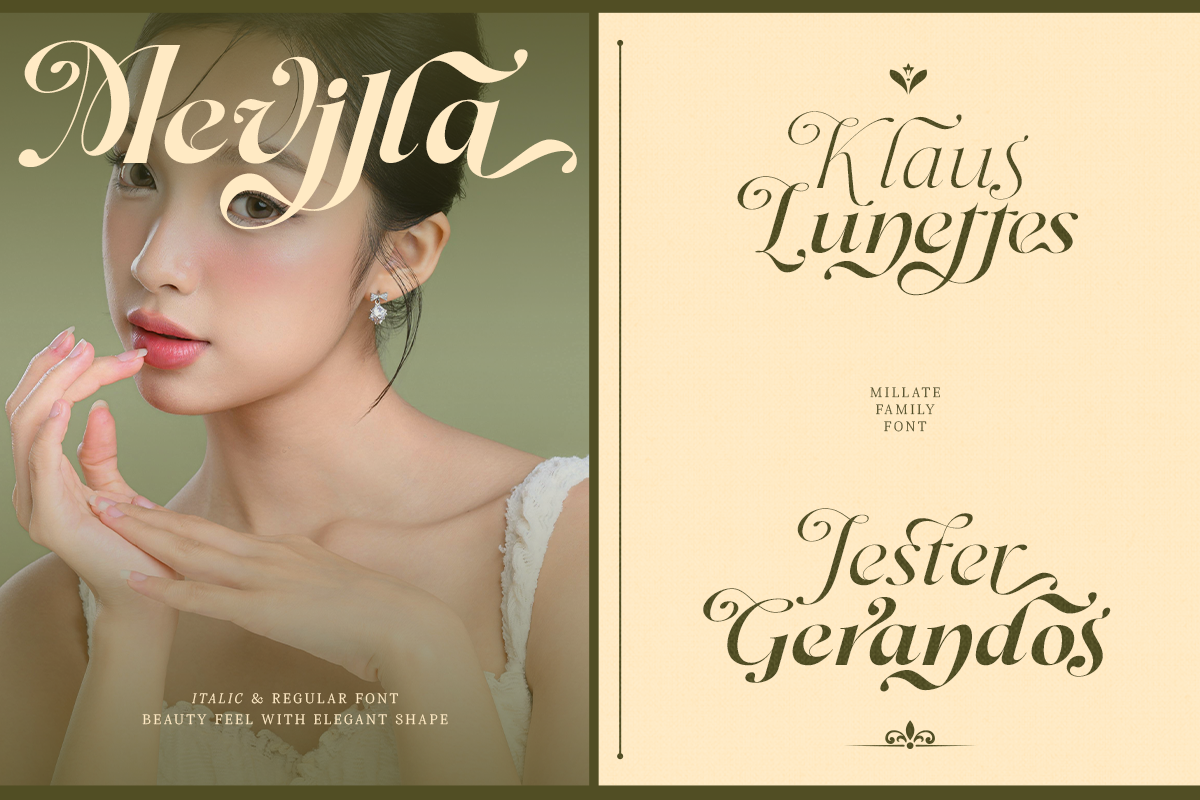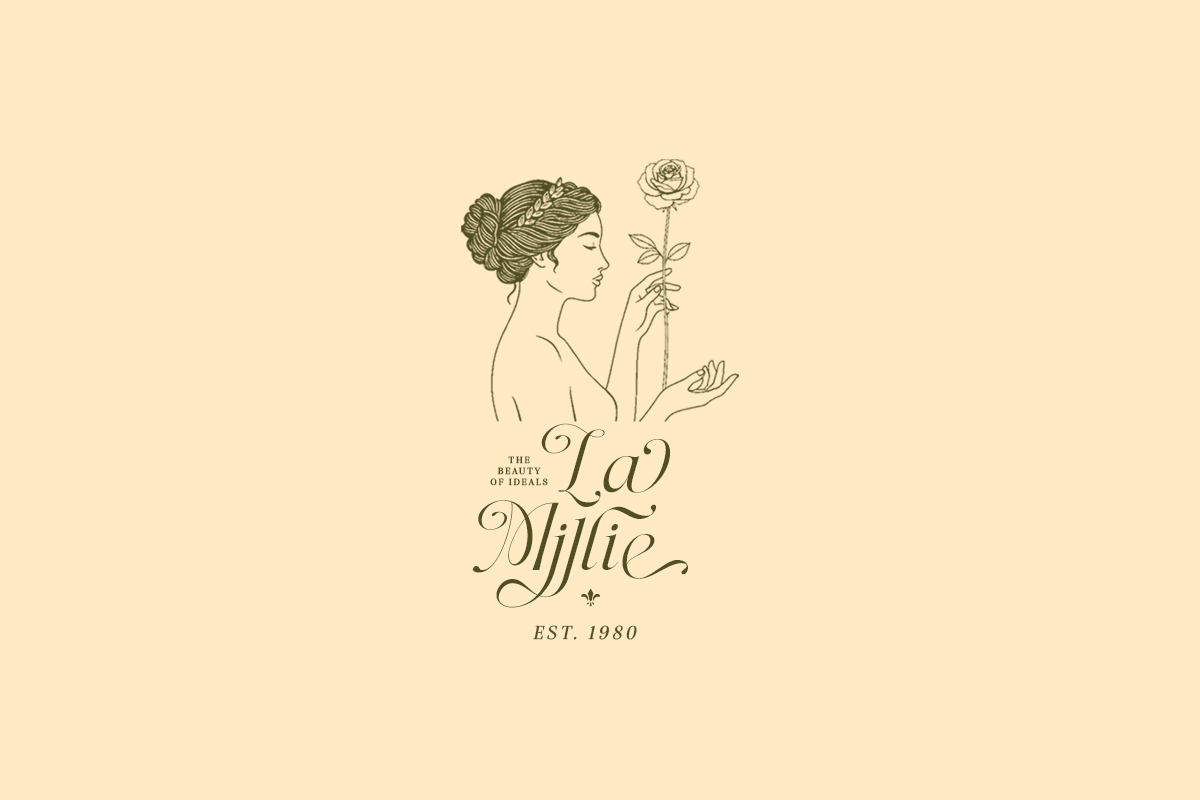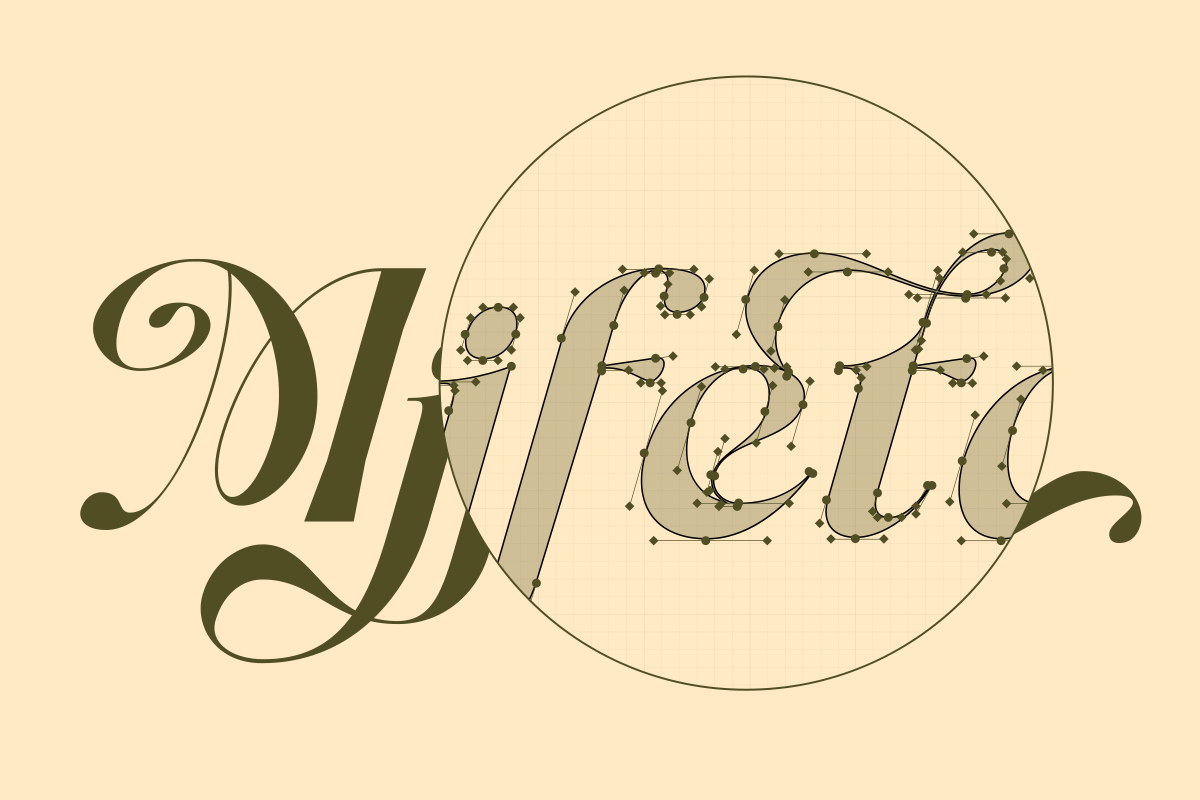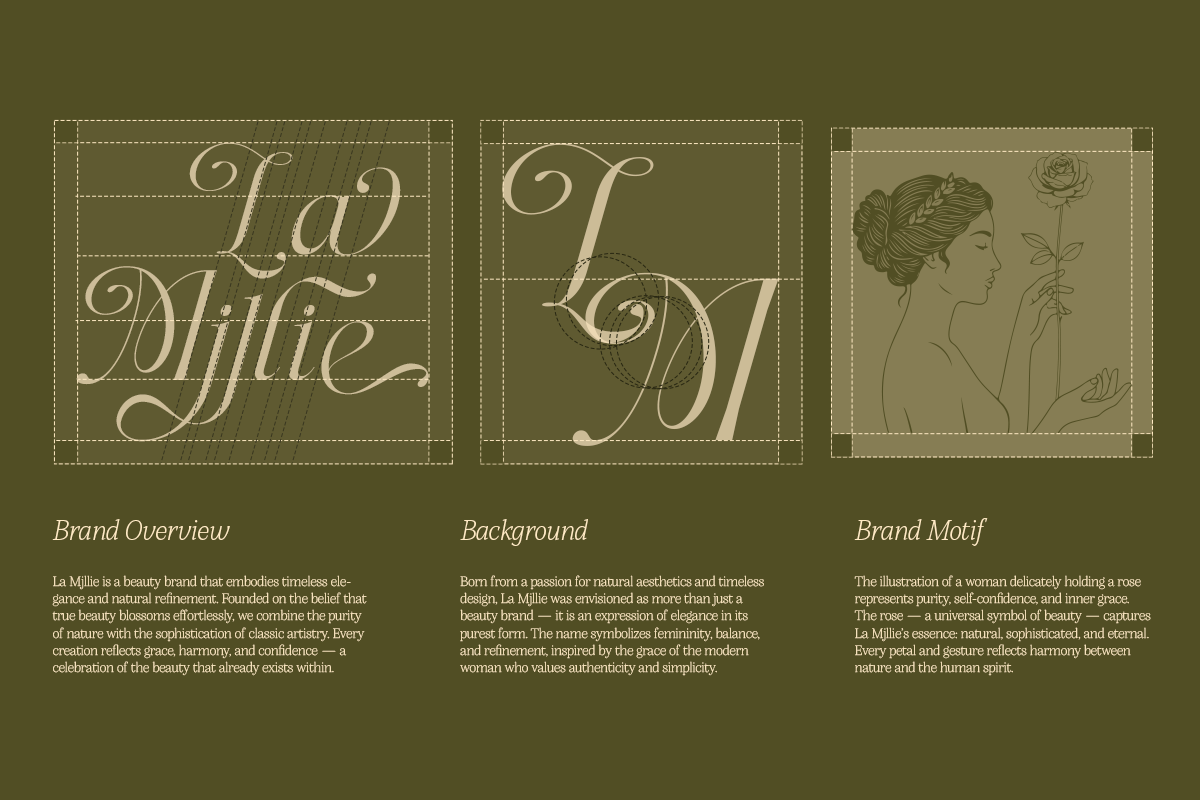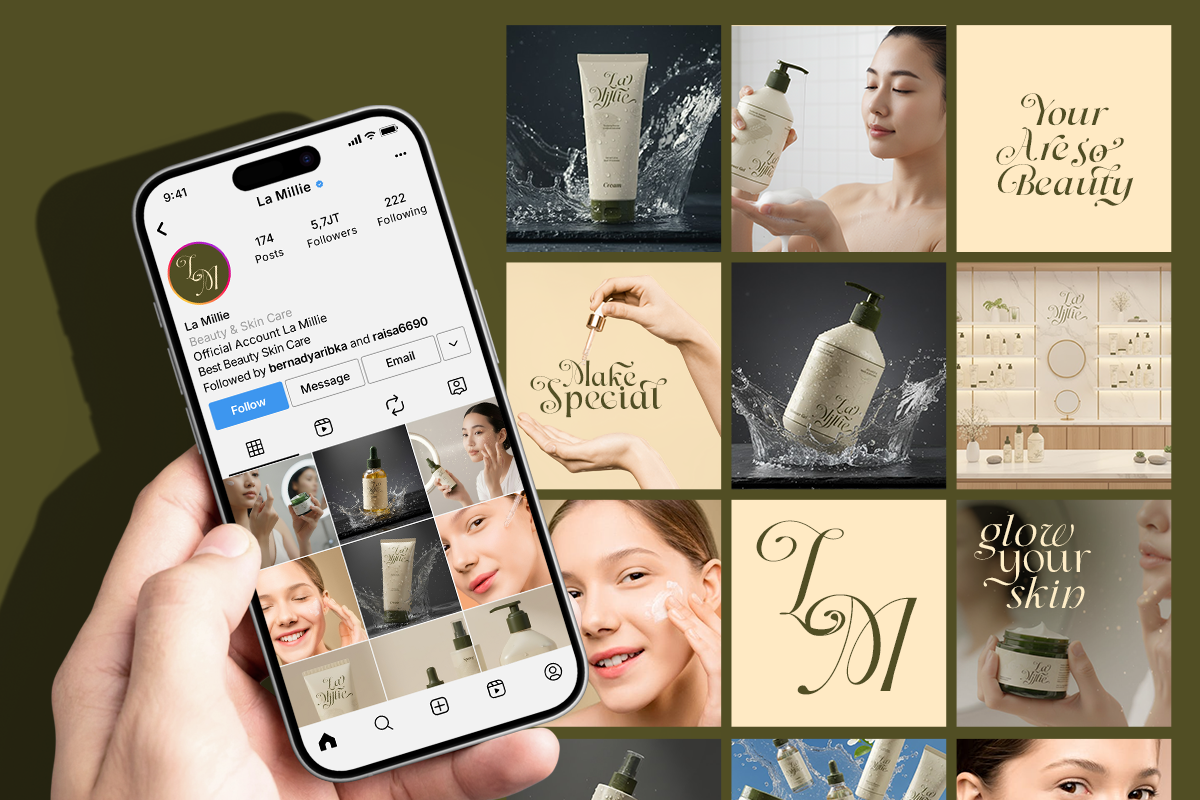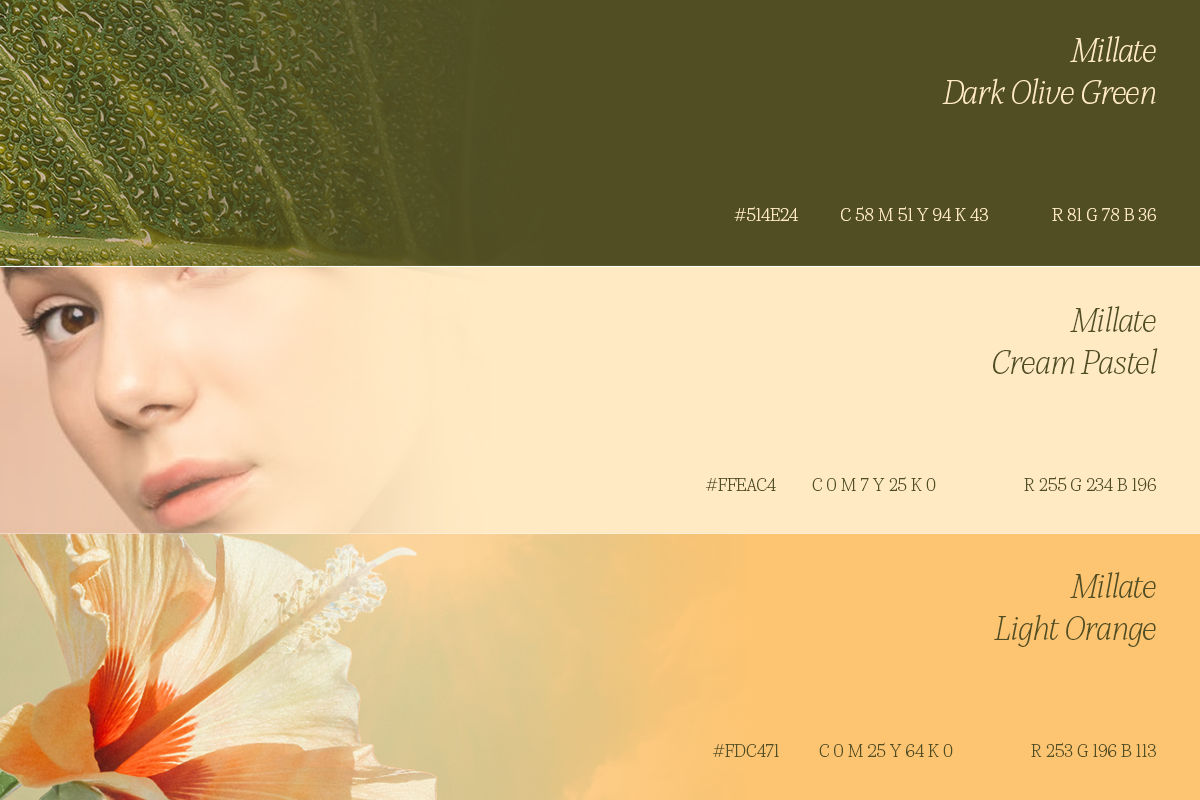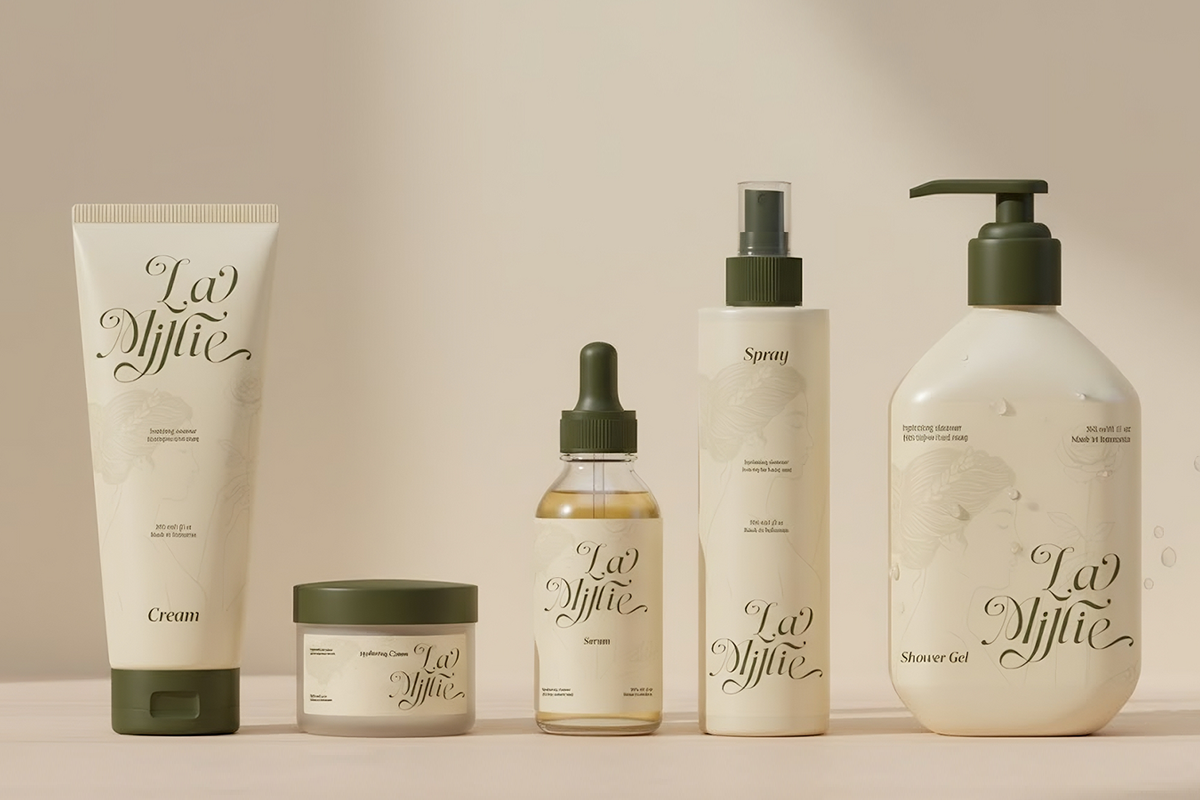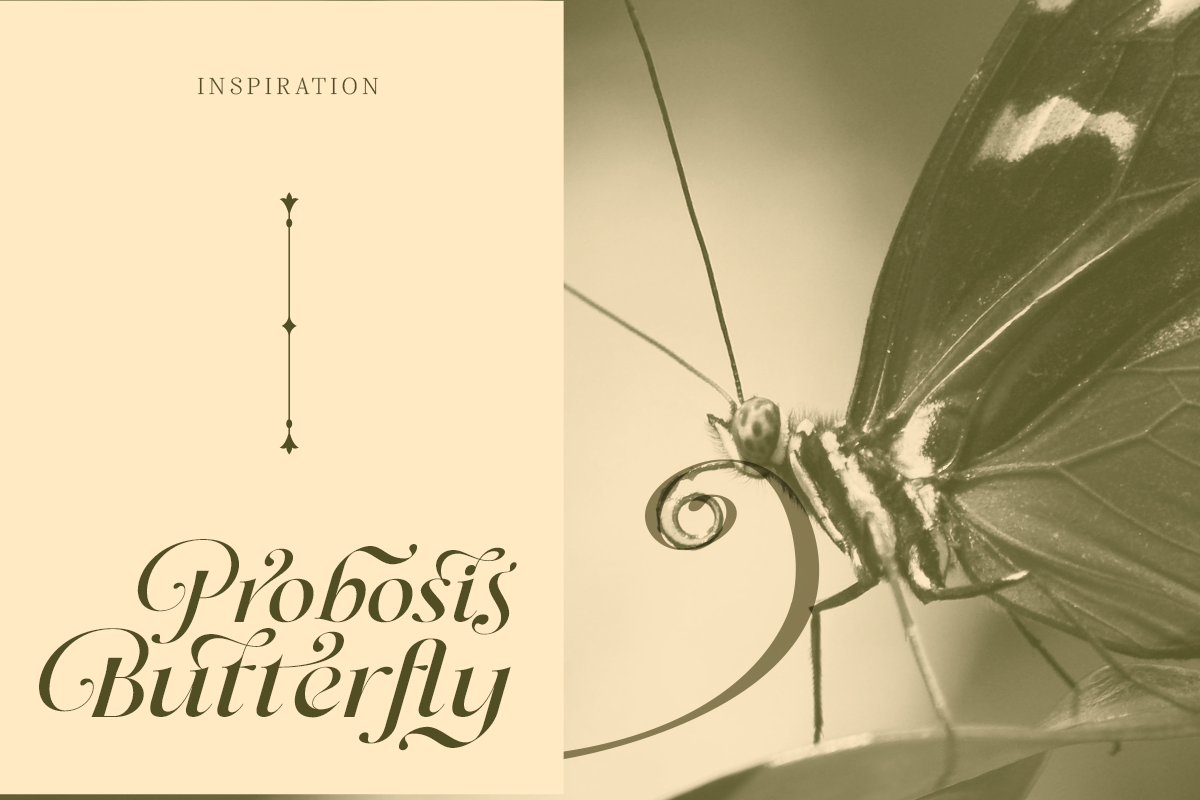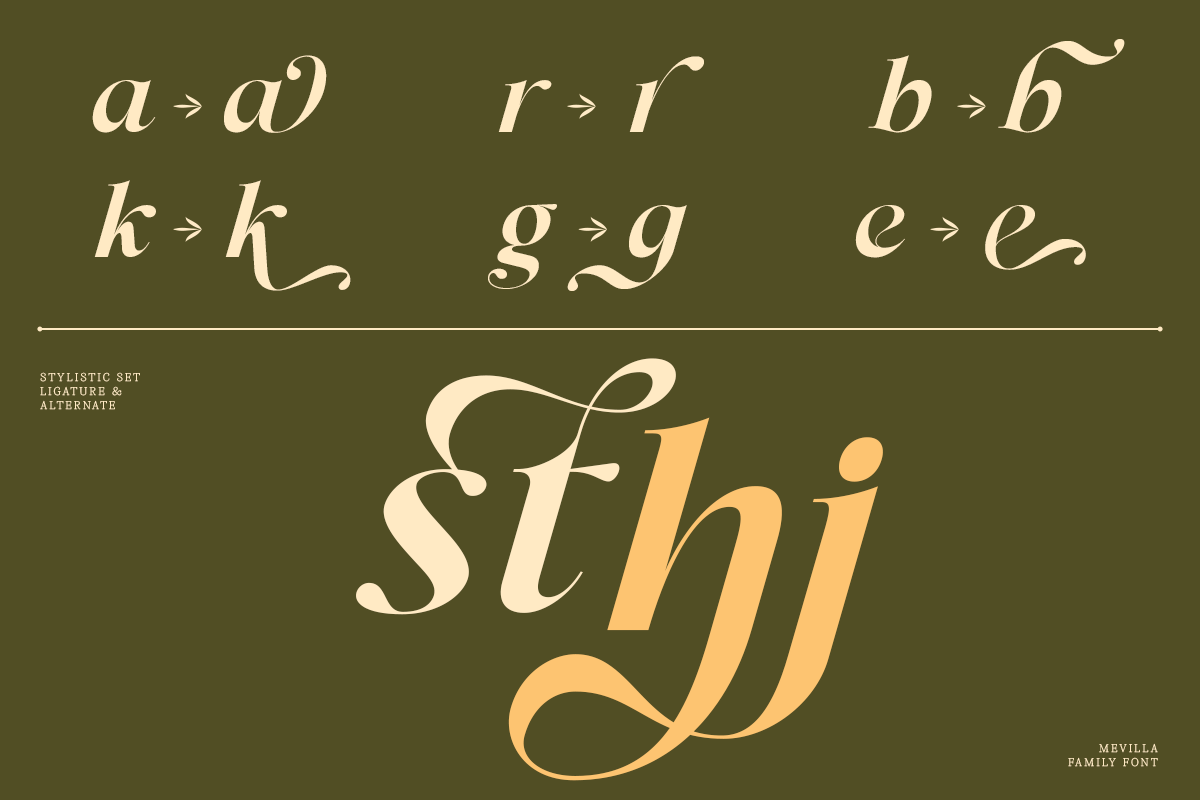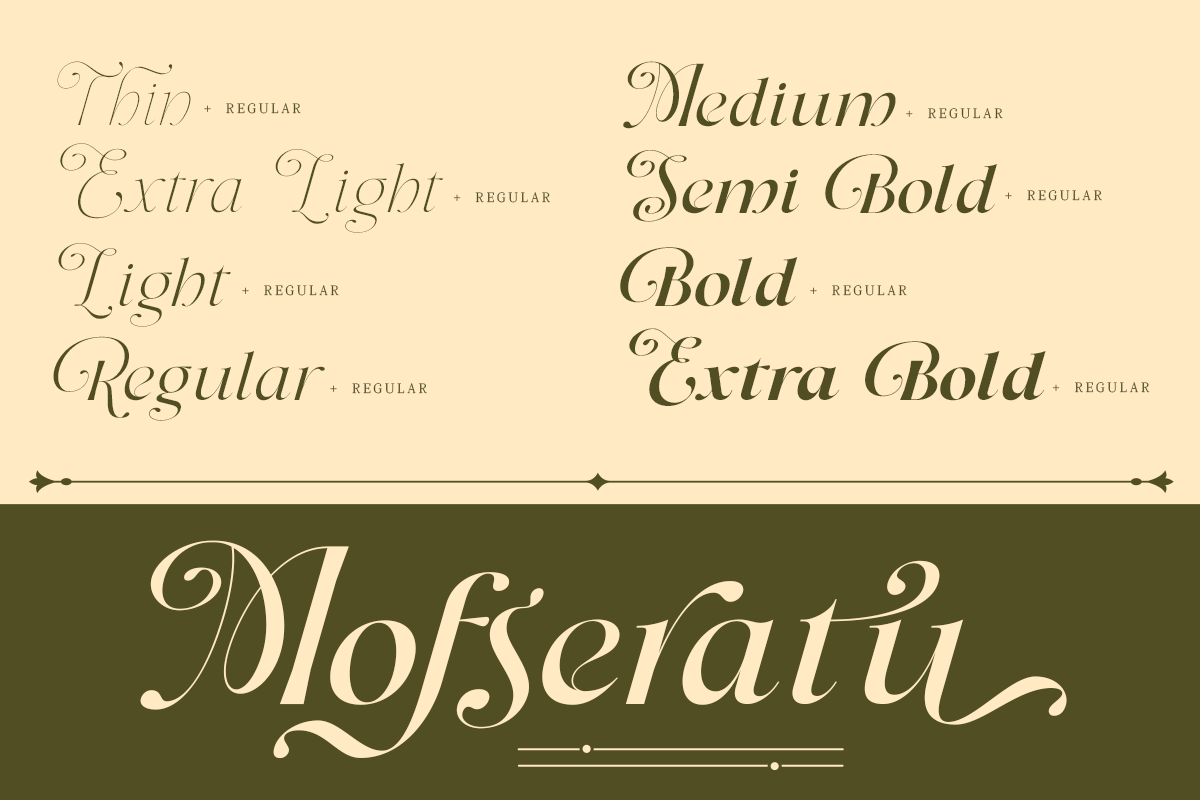
Dh Milate - 16 Beauty Elegant Family
Dh Milate is a beauty-inspired elegant serif family crafted with smooth curves, graceful contrast, and a naturally refined aesthetic. Designed for modern branding, cosmetic packaging, editorial layouts, and premium lifestyle visuals, this typeface brings a soft, feminine, and sophisticated character to any project.
This family includes 16 complete styles (8 Weights + Slanted) Thin, Thin Slanted, Extra Light, Extra Light Slanted, Light, Light Slanted, Regular, Slanted, Medium, Medium Slanted, Semi Bold Slanted, Bold, Bold Slanted, Extra Bold, and Extra Bold Slanted, giving designers full flexibility to build harmonious typographic hierarchies. Dh Milate also comes with a powerful Variable Font for smooth weight adjustments across digital, responsive, and modern workflow environments.
Featuring 90+ exquisite ligatures and alternates, Dh Milate offers expressive flourishes perfect for beauty branding, elegant packaging, wedding designs, logo typography, botanical themes, and editorial headlines. A complete PDF specimen is included for clear previewing of every style, glyph, and feature, and each letterform is crafted to deliver elegance, softness, and natural luxury, ideal for brands that want to communicate purity, femininity, and premium sophistication.
Dh Milate Font Features:
16 Styles (8 Weights + Slanted): Thin, Thin Slanted, Extra Light, Extra Light Slanted, Light, Light Slanted, Regular, Slanted, Medium, Medium Slanted, Semi Bold Slanted, Bold, Bold Slanted, Extra Bold, and Extra Bold Slanted
90+ Alternates and Ligatures
Letters, numbers, symbols, punctuation, special alternates